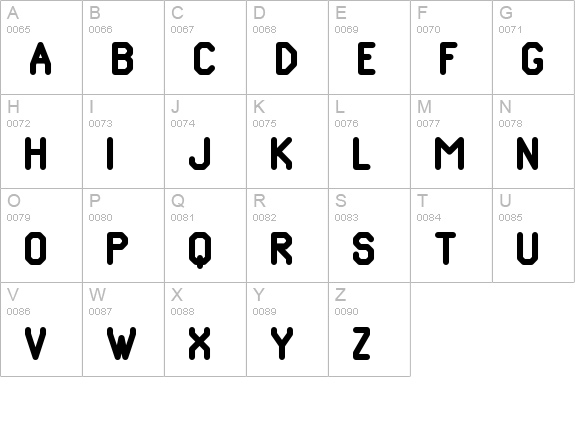
Pomcute Font Details
Introducing Pomcute font, a delightful and charming typeface that will add a touch of whimsy to your designs. This font features playful and rounded letterforms that are perfect for creating cute and eye-catching projects. With its friendly and inviting aesthetic, Pomcute font is sure to bring a smile to anyone who sees it. Best of all, Pomcute font is available for free download at FontsMarket.com. Simply visit the website and start using this adorable font in your projects today. Whether you're designing greeting cards, posters, invitations, or any other creative project, Pomcute font is a fantastic choice that will make your designs stand out. Don't miss out on this opportunity to add a touch of sweetness to your work with the free Pomcute font.